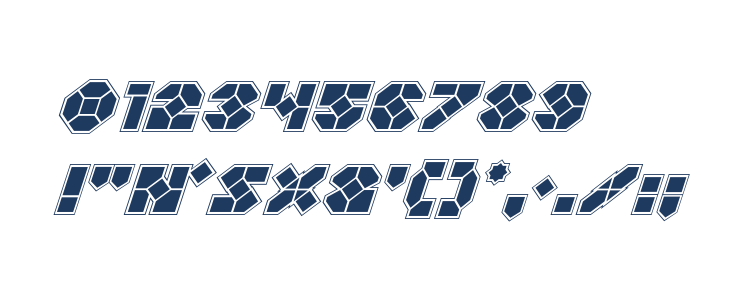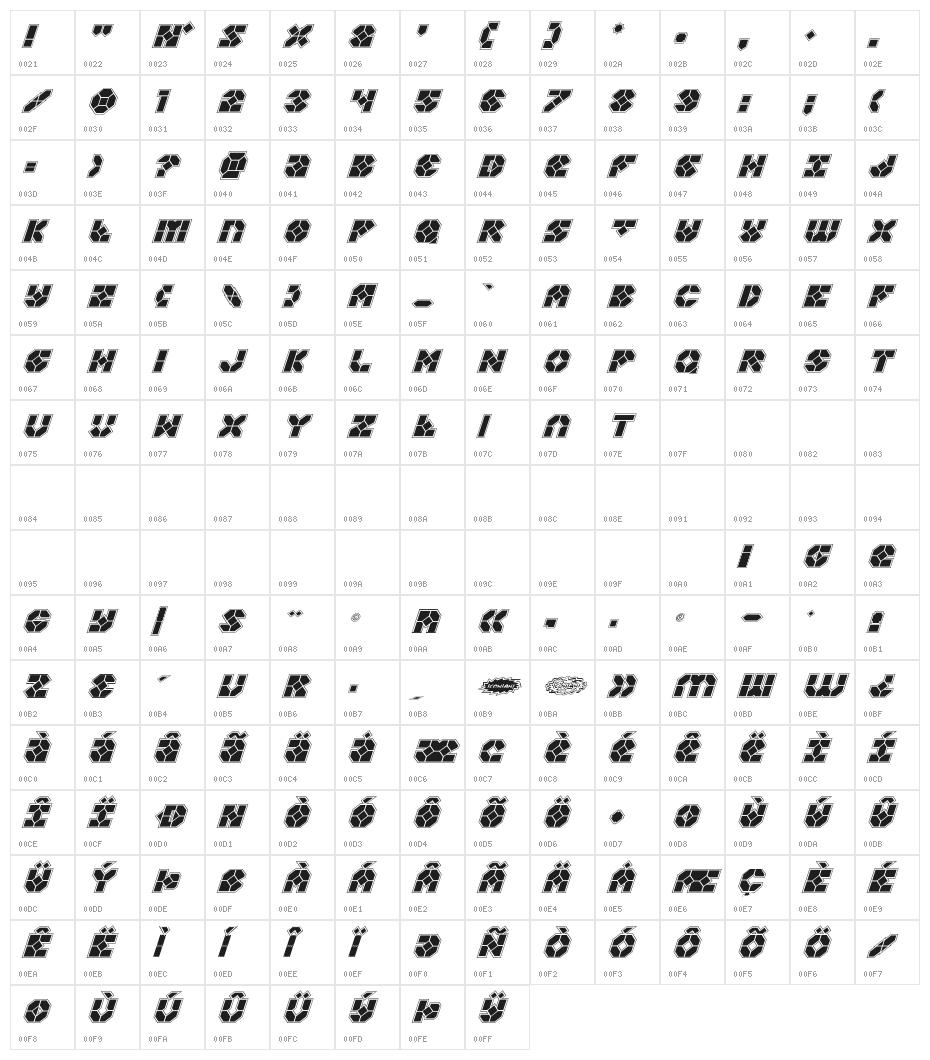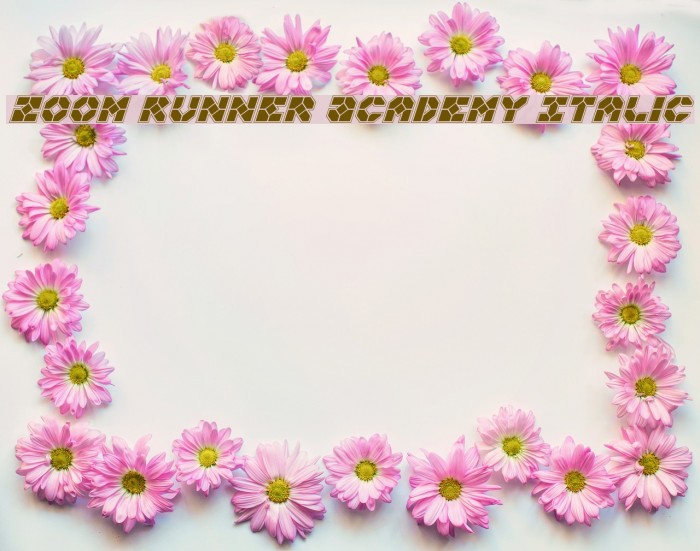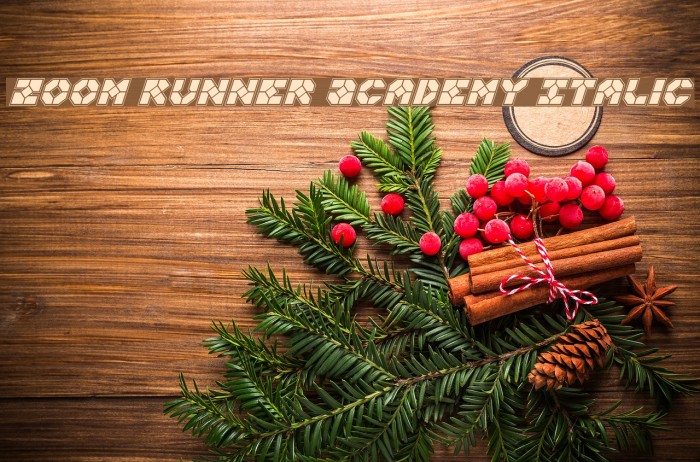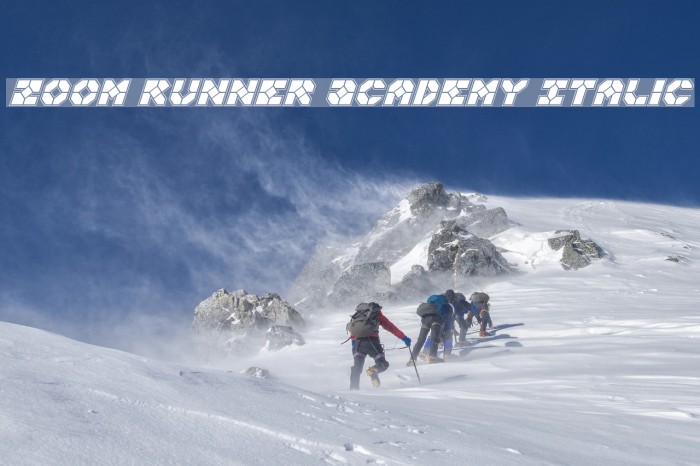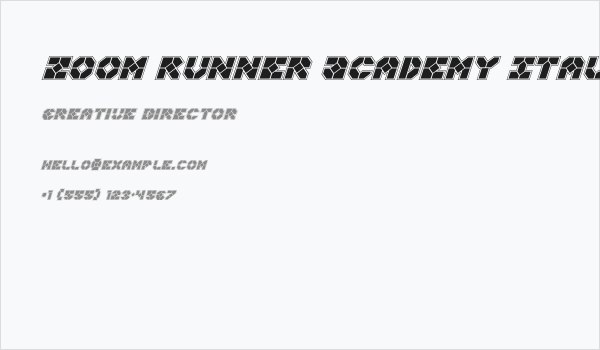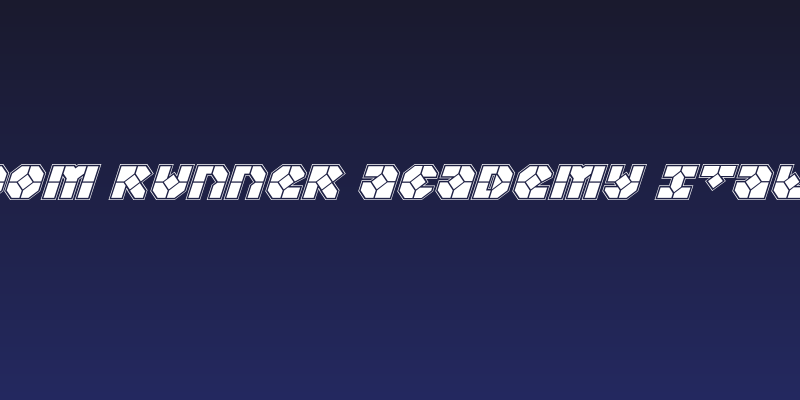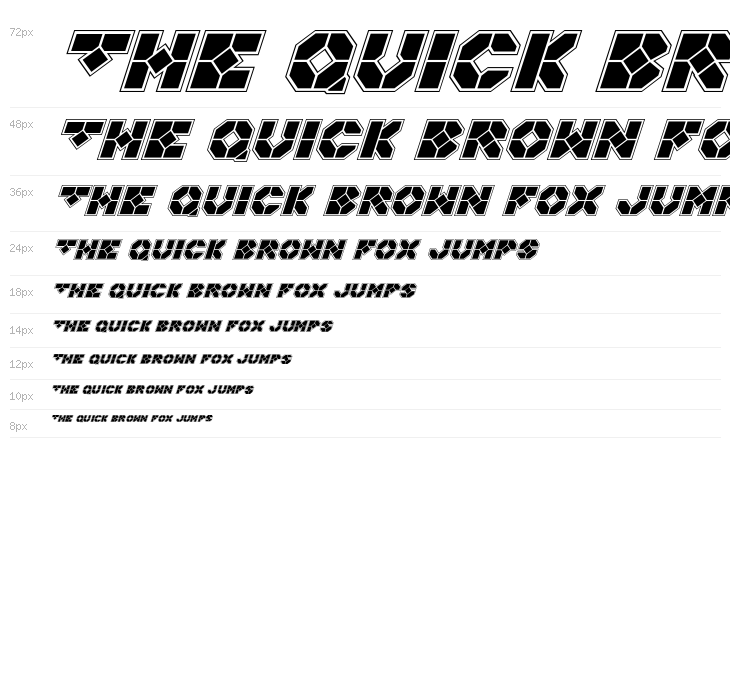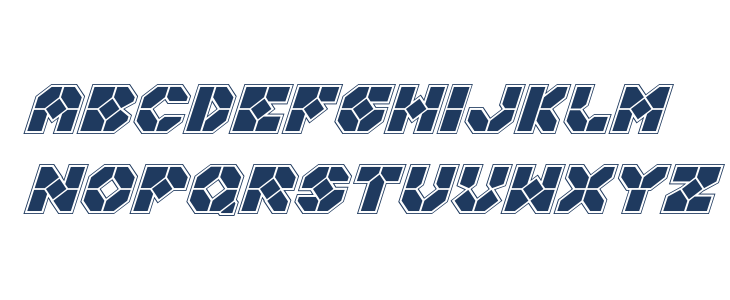
Zoom Runner Academy Italic Font
Zoom Runner Academy Italic Description
This font features a bold, geometric design with a distinct italic slant, giving it a dynamic and futuristic appearance. The characters are constructed with thick, angular lines and sharp edges, creating a sense of movement and speed. The boldness of the font is accentuated by the high contrast between the thick strokes and the negative space within each character. The overall style is modern and eye-catching, making it suitable for projects that require a strong visual impact. The character spacing is tight, which enhances the compact and cohesive look of the text.